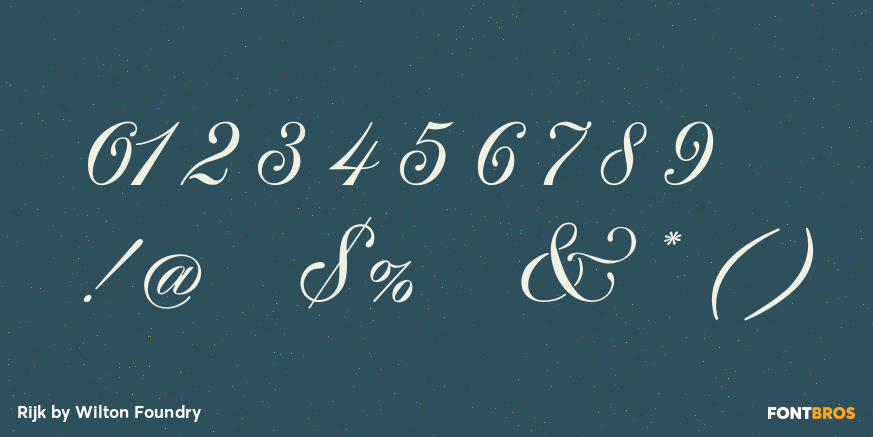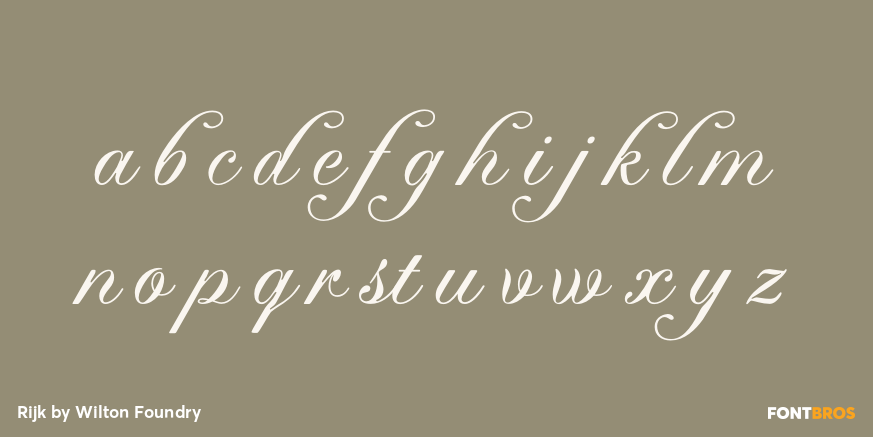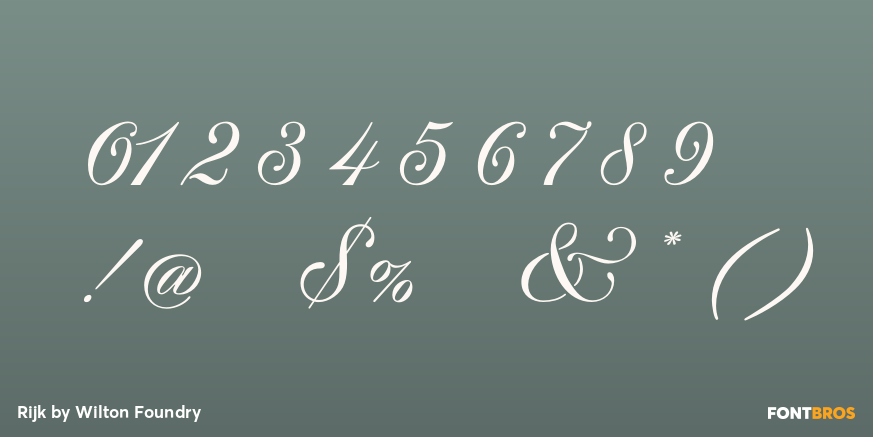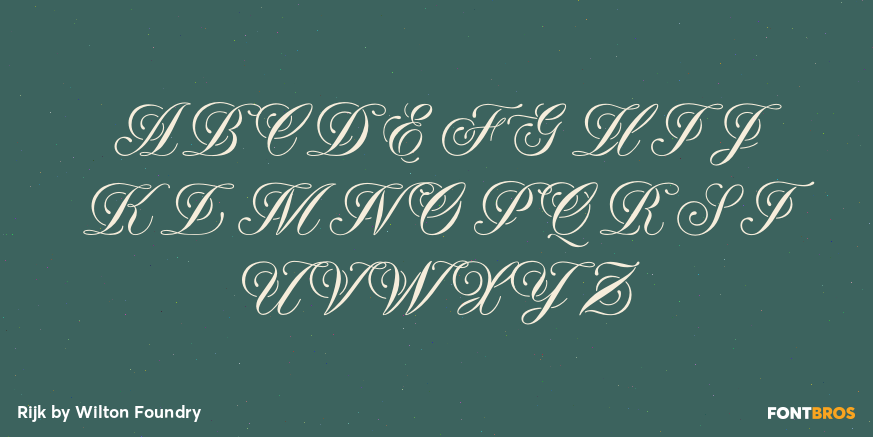
Rijk
Font Family by Wilton Foundry
The font name comes from the Dutch word ?Rijk? meaning ?rich?. I'd like you to consider Rijk as a good Pinot Noir: medium bodied, offering succulent juicy berry flavors, accentuated by delicate aromas of coffee and vanilla oak. Ruby red in color, it boasts of velvety tannins and a long fulfilling fruity aftertaste. Rijk has a structure that is delicate and fresh. The aromatics are very fruity like cherry, strawberry, and plum, often with notes of tea-leaf, damp earth, or worn leather? My intent was to create a script that is rich, while not overbearing. It will serve many noble and useful purposes because of its fresh and lively texture. It is also very legible because it has a slightly more upright angle. Use Rijk for headlines, packaging, identities, advertising and online. Available in OpenType, it includes a range of ligatures as well as a full range of class kerning.